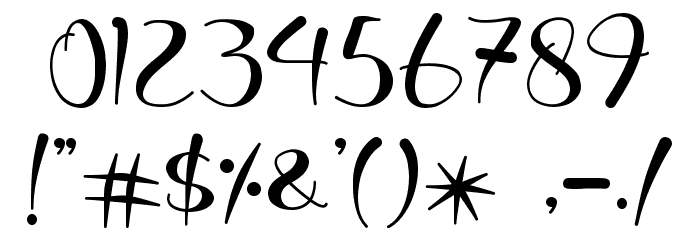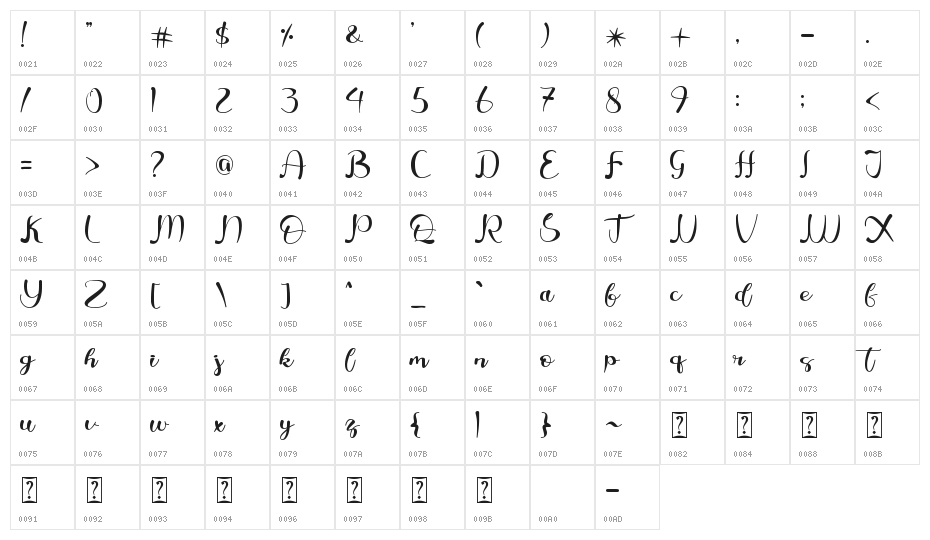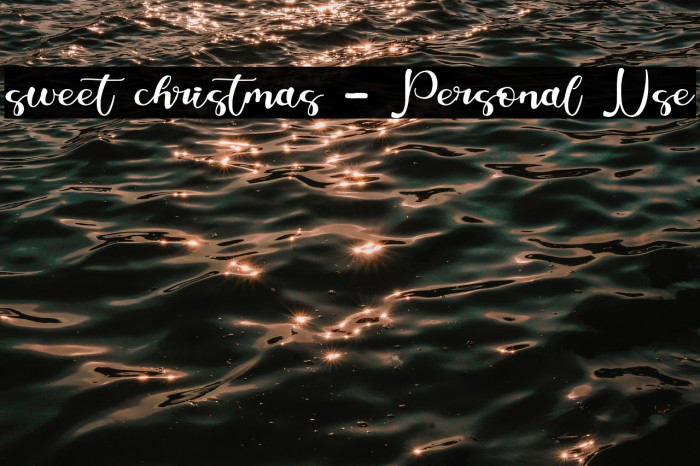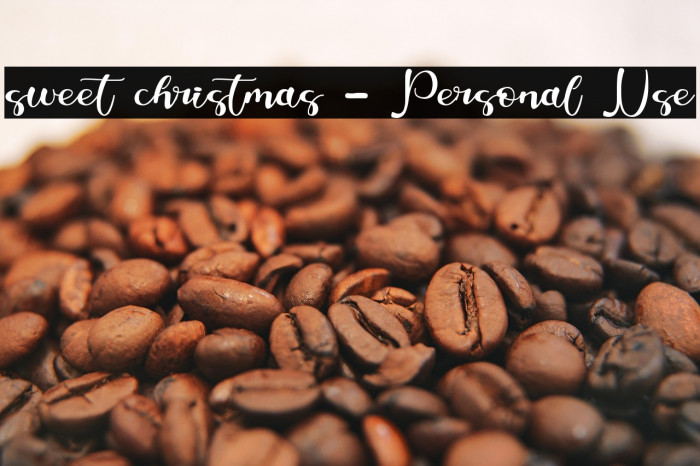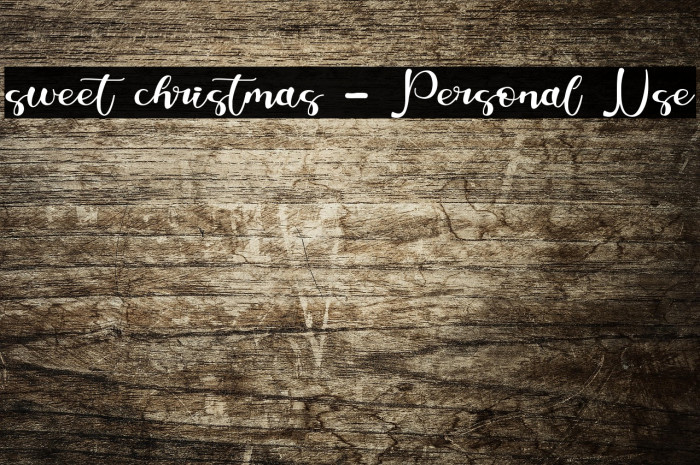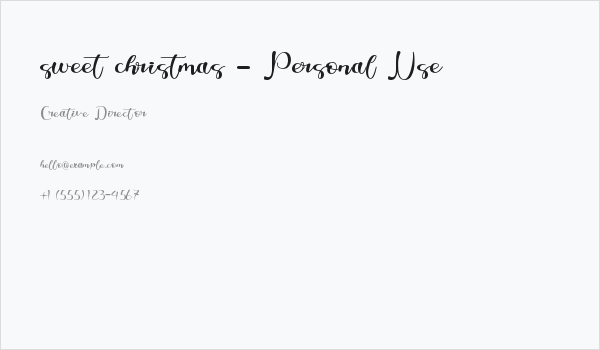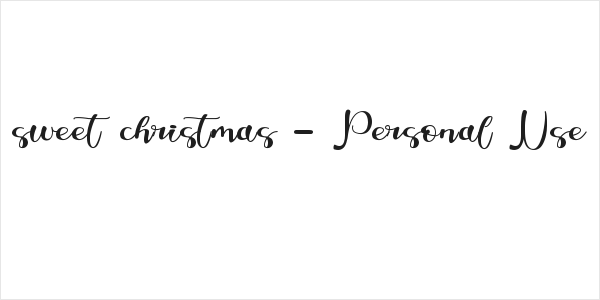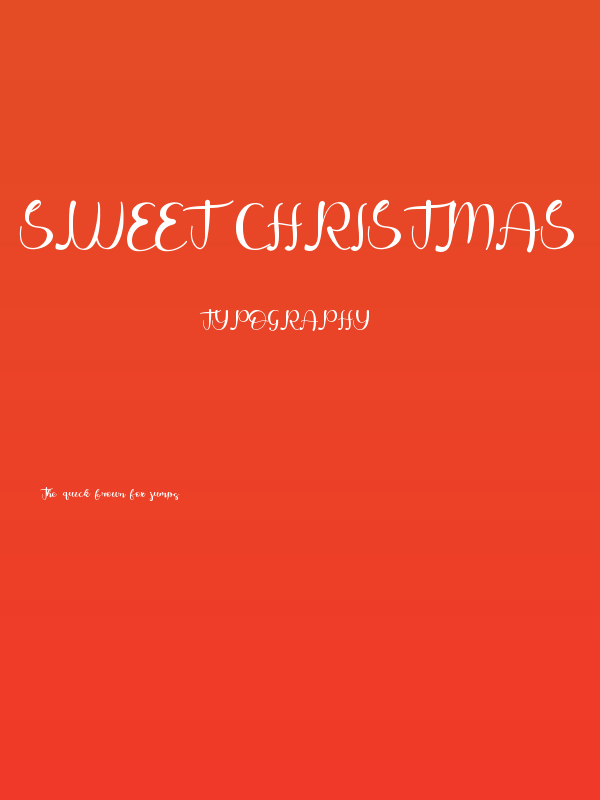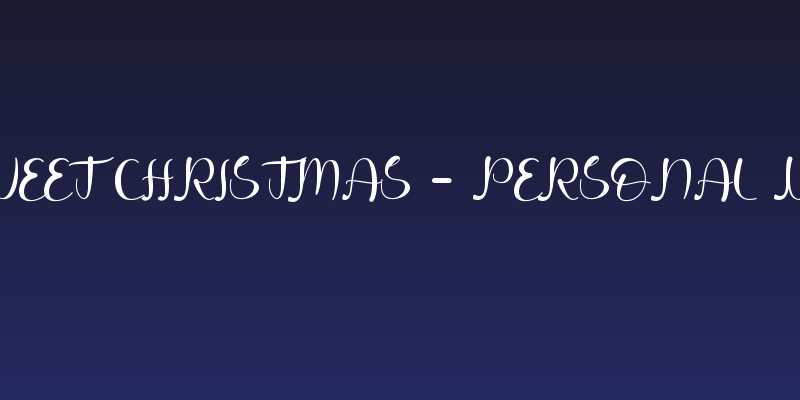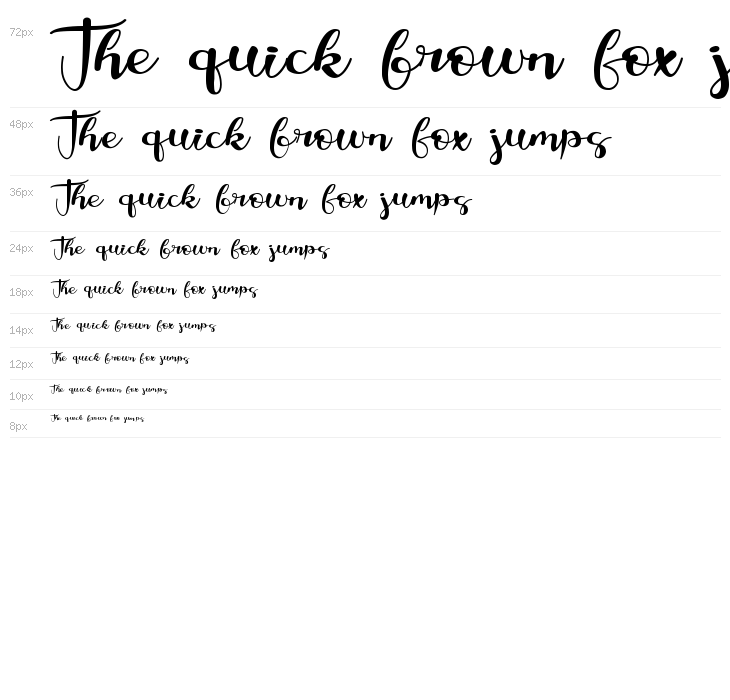
sweet christmas - Personal Use Font
sweet christmas - Personal Use Description
This font features a playful and elegant script style with a modern twist. The uppercase letters are bold and flowing, with a distinct loop and curl that adds a whimsical touch. The lowercase letters maintain a consistent style, with smooth curves and a slightly slanted orientation, enhancing the handwritten feel. The numerals are uniquely styled, matching the overall aesthetic with their curvy and artistic design. Special characters are creatively integrated, maintaining the font's cohesive look. This font is perfect for projects that require a personal and artistic touch, such as invitations, greeting cards, and branding materials.
| Proposed Projects | Ideal for invitations, greeting cards, branding, and artistic projects. |